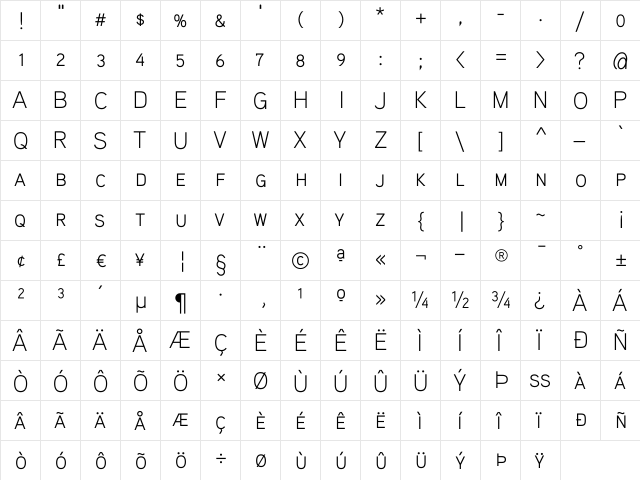
Aaux ProLight SC Regular
Design Context for Aaux ProLight SC Typeface
Aaux ProLight SC takes a measured approach to typography — its balanced proportions and neutral character make it a reliable workhorse for both digital and print work. The delicate stroke weight brings airiness and refinement to layouts.